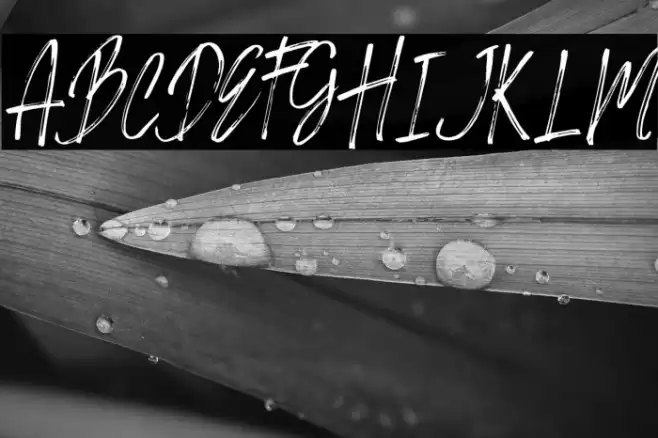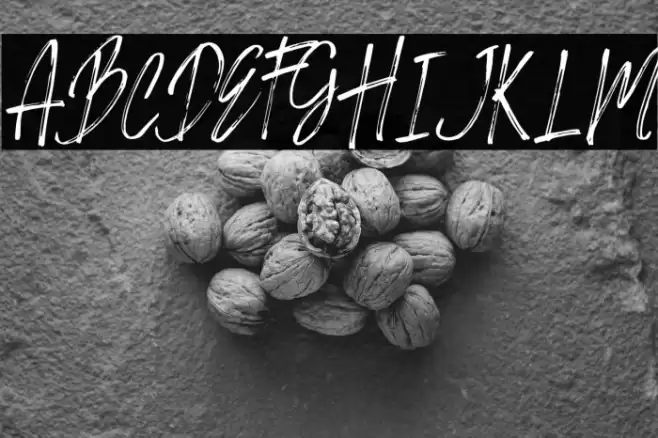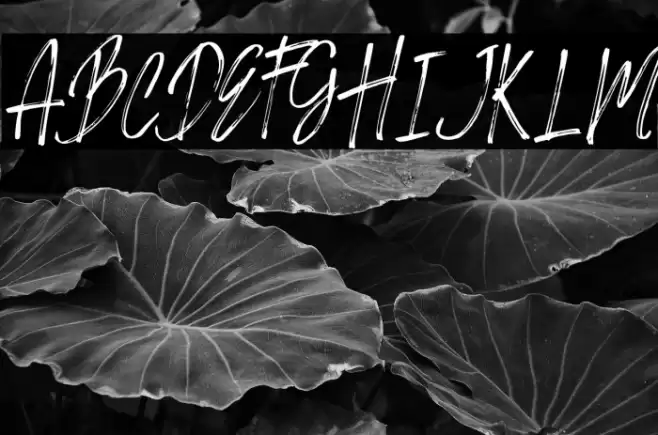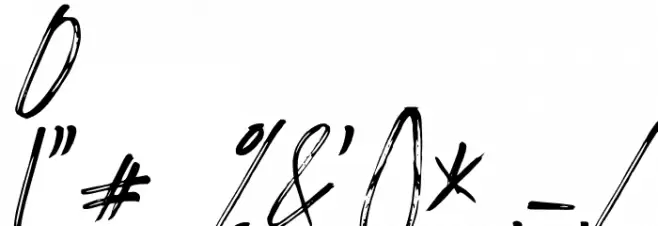
SIKATCH Font
SIKATCH Description
This font exhibits a dynamic and expressive handwritten style, characterized by its fluid and energetic strokes. The letters are slightly slanted, giving a sense of motion and spontaneity. The uppercase and lowercase letters maintain a consistent style, with elongated ascenders and descenders that add to the font's lively appearance. The numbers and special characters are crafted with the same attention to detail, ensuring a cohesive look across all glyphs. The overall impression is one of creativity and artistic flair, making it suitable for projects that require a personal touch.
- Proposed Projects: Ideal for creative projects such as invitations, greeting cards, branding, and artistic posters.
- Use Case: Logos, Headlines, Artistic projects